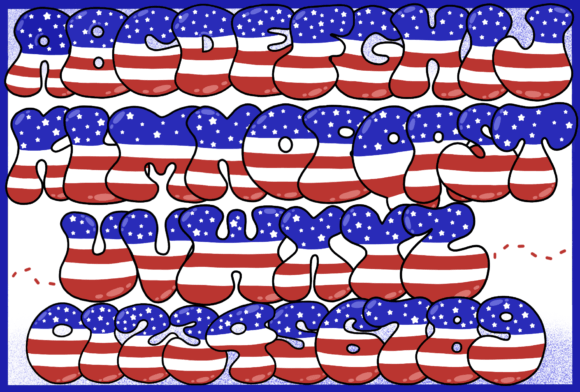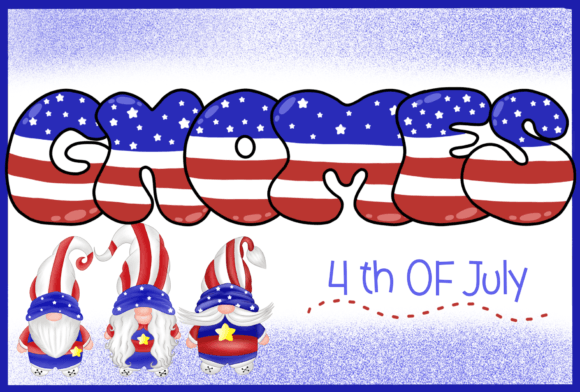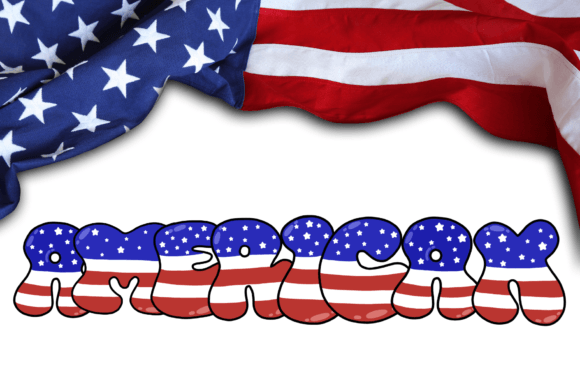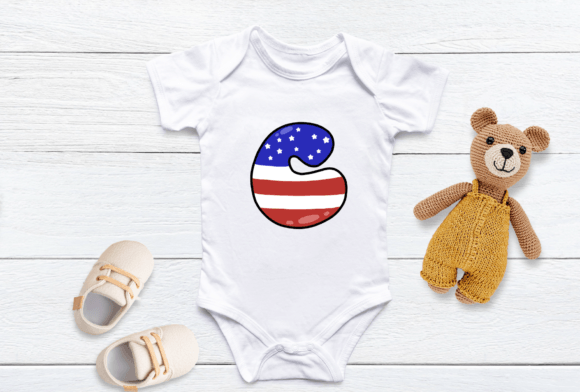
Introducing American Groovy Font: A Patriotic Decorative Typeface
Are you looking for a font that embodies the spirit of American pride and patriotism? Look no further than the American Groovy Font. Inspired by the iconic Stars and Stripes of the United States of America’s flag, this captivating decorative font is perfect for designers and crafters who want to add a touch of American symbolism to their projects.
What is American Groovy Font?
American Groovy is a unique typeface that beautifully captures the essence of American identity. Its design is inspired by the country’s flag, featuring bold lines, vibrant colors, and a playful style that’s sure to grab attention. Whether you’re creating patriotic-themed posters, invitations for Fourth of July celebrations, or any project that requires a dash of American pride, this font is the perfect choice.
Key Features of American Groovy Font
- Patriotic Design: The font’s design is inspired by the American flag, making it perfect for patriotic-themed projects.
- Decorative Style: American Groovy is a decorative font that adds a touch of elegance and sophistication to any design.
- Vibrant Colors: The font features bold, vibrant colors that are sure to grab attention and add a celebratory atmosphere to your designs.
Uses of American Groovy Font
American Groovy Font is a versatile typeface that can be used in a variety of projects, including:
- Patriotic Posters: Create eye-catching posters for patriotic events, such as Independence Day celebrations.
- Fourth of July Invitations: Design invitations for Fourth of July parties and events that feature the American Groovy Font.
- American-Themed Crafts: Use the font to create American-themed crafts, such as DIY signs, banners, and decorations.
- Branding and Marketing: Use American Groovy Font in branding and marketing materials to add a touch of American pride and patriotism.
Benefits of Using American Groovy Font
Using American Groovy Font in your designs offers several benefits, including:
- Unique and Eye-Catching Designs: The font’s unique design and bold colors are sure to grab attention and make your designs stand out.
- Patriotic Appeal: The font’s patriotic design is perfect for creating designs that appeal to American pride and patriotism.
- High-Quality Design: American Groovy Font is a high-quality font that is designed to produce crisp and clear text, even at small sizes.
Tips for Using American Groovy Font
Here are some tips for using American Groovy Font in your designs:
- Use it Sparingly: Use the font sparingly to add emphasis and create visual interest in your designs.
- Pair it with Other Fonts: Pair American Groovy Font with other fonts to create a unique and visually appealing design.
- Experiment with Colors: Experiment with different colors and combinations to find the perfect look for your design.
- Have Fun: Most importantly, have fun and be creative with American Groovy Font!
American Groovy Font is a captivating and patriotic decorative font that’s perfect for designers and crafters who want to add a touch of American pride and symbolism to their projects. With its unique design, vibrant colors, and easy-to-use format, this font is sure to become a favorite in your design arsenal. So why wait? Download American Groovy Font today and start creating stunning designs that showcase the spirit of American pride!